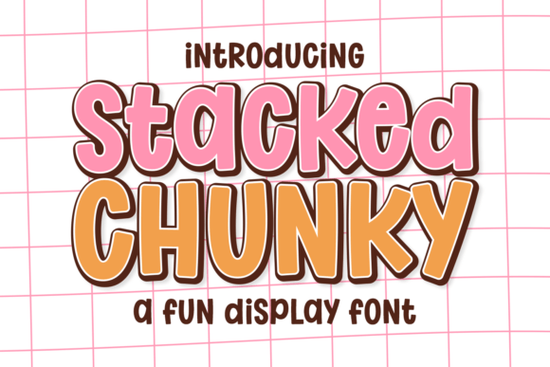
If you need a display font that feels bold, playful, and full of energy, this is where you stop looking. The Stacked Chunky font brings together chunky letterforms with soft, rounded edges so it never feels harsh. It’s built for projects that need to grab attention without scaring anyone off – think candy wrappers, birthday banners, or bright YouTube thumbnails. Whether you’re designing for kids, selling on print-on-demand, or making planner stickers, the appeal is instant.
What makes the Stacked Chunky font stand out?
Most heavyweight fonts can feel a little intimidating. Stacked Chunky solves that by adding rounded corners and a bouncy shape to every character. The letters still have a strong presence – they take up space and demand to be seen – but the softness makes them approachable. That balance is rare. It works especially well when you want text to feel exciting but not aggressive, which is why you’ll see it everywhere from toy packaging to camp flyers. Legibility stays high because the proportions are generous and the counters (the holes inside letters) are open enough to read even at large sizes.
How can I use this font in my designs?
Because of its bold, cheerful nature, Stacked Chunky fits naturally into several categories:
- Children’s product packaging – Labelling for snacks, games, or toys needs to be fun and easy to read. This font does both.
- Birthday party decorations – Banners, cupcake toppers, and invitations become more lively with a chunky, candy-store style.
- Casual gaming interfaces – Menu buttons, scoreboards, and character names in a lighter game benefit from a playful display font.
- Digital planner stickers and YouTube thumbnails – When you add a white border or a sticker‑style offset, the letters pop off the screen and look like physical die‑cut stickers.
- Summer camp flyers and event posters – Bright colours and simple geometric accents turn a plain poster into something that screams “fun.”
You can also pair it with hand‑drawn sparkles, stars, or abstract shapes for a maximalist look that’s trending right now. The key is to let the font lead – it already has so much personality that the rest of the design only needs small supporting elements.
What colour schemes work best?
This font loves bright tones. Think primary colours, neons, or pastels with high contrast. A rainbow palette works because the rounded, chunky letters soak up colour gradients without losing shape. If you want a more refined look, try using a single bright colour on a dark background – the weight of the letters will still feel energetic but a little more contained. Adding a white border or a slight offset (like a duplicate layer behind the text in a different colour) creates that sticker‑style effect that stands out in thumbnails and planner layouts.
Which other fonts pair well with Stacked Chunky?
Since Stacked Chunky is a display font meant for headlines and short phrases, you often need a secondary font for body text or subheadings. The Cowboy Block Font shares that chunky, confident feel but with a more rugged, western vibe – great for themed posters or food truck menus. If you want something softer, the Glossy Bubble Font mimics 3D bubble letters and complements Stacked Chunky with a shiny, dimensional look. For projects that lean toward a retro summer feel, the Summer Forever Font brings a relaxed, hand‑lettered style that balances out the boldness. And if you’re designing for kids, the Kidpop Font offers a playful, uneven baseline that pairs beautifully with Stacked Chunky’s bounce.
Mixing display fonts can be tricky. A good rule is to use one heavy font for the main message and a lighter, simpler script or sans‑serif for details. That way your design stays readable without feeling chaotic.
Tips for print‑on‑demand sellers
If you sell t‑shirts, mugs, or tote bags, a font like Stacked Chunky can be your secret weapon. Oversized text on a shirt becomes a statement piece – add a bright colour and a small graphic, and you have a product that photographs well and sells fast. Because the letters are thick, they hold up beautifully in screen printing and heat transfer. Just remember to keep the text short: two or three words max. Long phrases lose the playful impact and can overwhelm the garment.
Practical next step
Grab the Stacked Chunky font and test it in a real project. Start with one of these ideas:
- Create a simple party invitation in Canva or Photoshop using bright colours and a small geometric border.
- Design a YouTube thumbnail with your main word in Stacked Chunky and a white offset layer.
- Make a mock‑up of a children’s product label and see how the font feels at different sizes.
Once you see how easily it carries the mood of a design, you’ll reach for it again and again. And if you need another option that works similarly but with a different edge, scroll back up and compare it with the Glossy Bubble Font or the Cowboy Block Font. Each one offers a slightly different personality while keeping that same bold, readable quality.